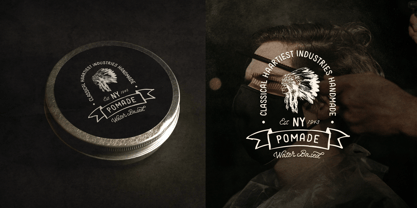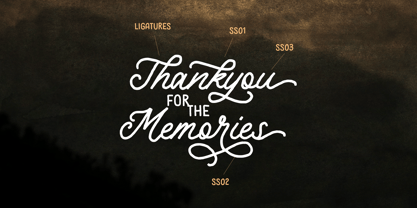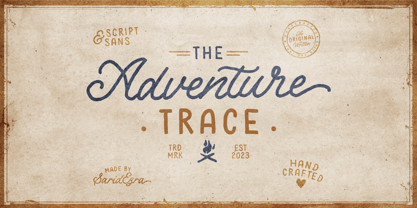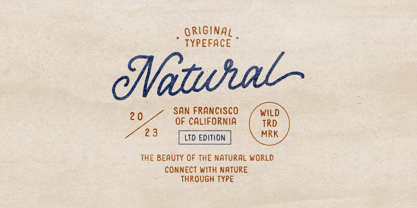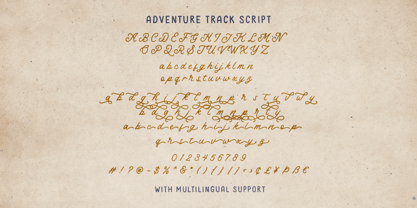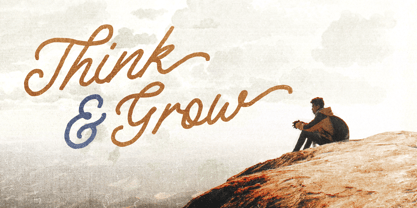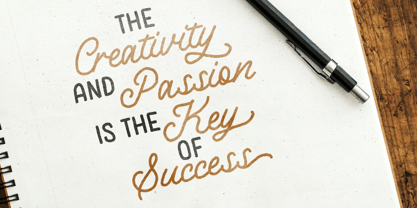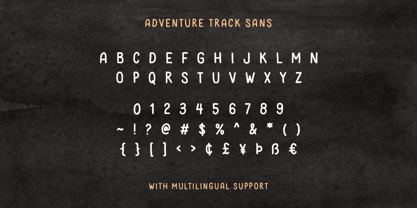
Adventure Trace
by Sarid Ezra
The Adventure Trace Font Family was designed by Sarid Ezra and published by Sarid Ezra. Adventure Trace contains 2 styles and family package options. More about this family
Adventure Trace is a handmade monoline font duo that contains Script and Sans Serif. With this combination, you can easily make logotype or badge for your outdoor or adventure logo. It's also great for quotes. You can use this font duo for any purposes that need natural and handmade looks! Adventure Track also support multi language!